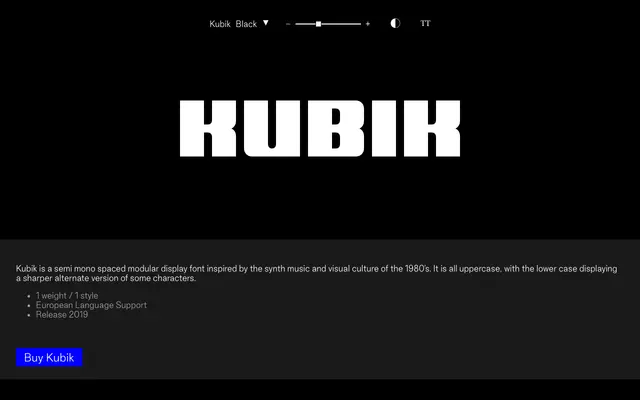
Kubik
Good Type Foundry · 2019
A semi-monospaced, all-caps modular display face drawn from 1980s synth music and visual culture, released in a single Black weight.
Built on a modular grid with semi-monospaced spacing, Kubik is an all-uppercase display font with roots in the digital aesthetics of 1980s synth culture. The lowercase slot offers an alternate, sharper cut of select characters rather than a true lowercase alphabet. Despite a single weight and style, it ships with broad European language support across 172 accented glyphs.
A semi-monospaced, all-caps modular display face with a grid-based construction typical of 1980s digital and synth-culture aesthetics, placing it firmly in the display category.